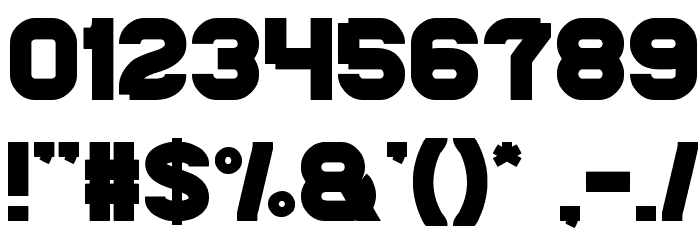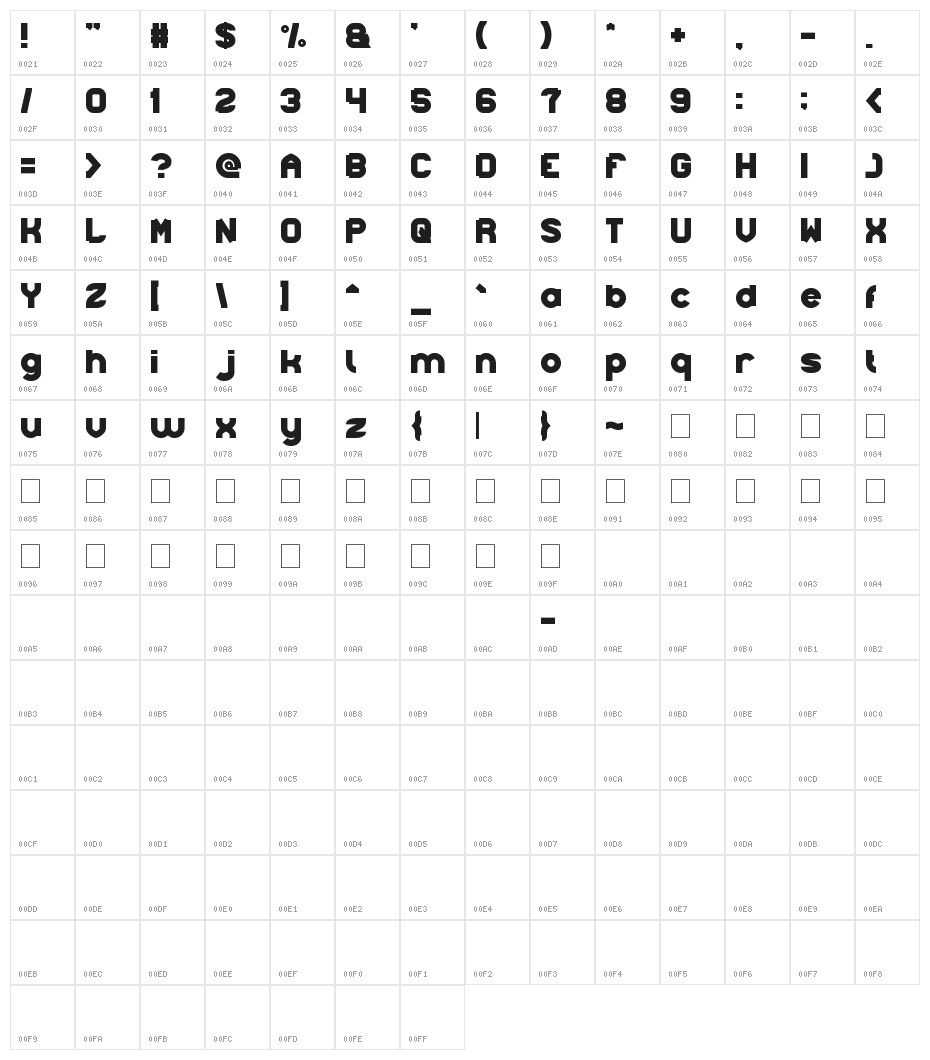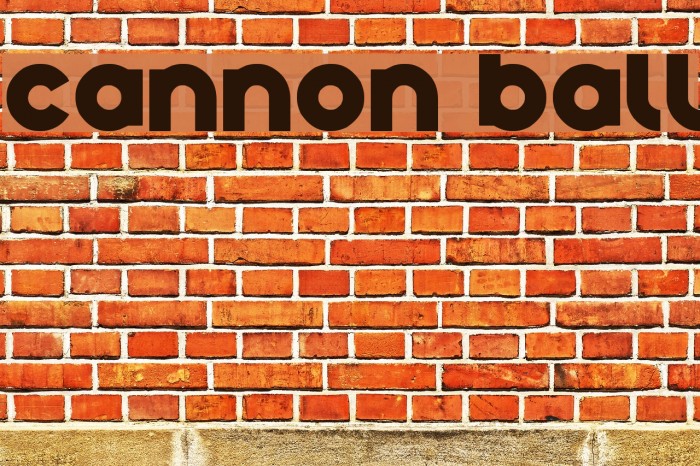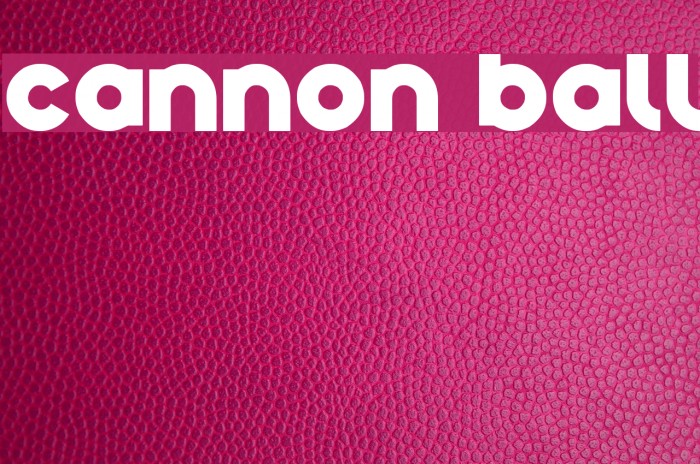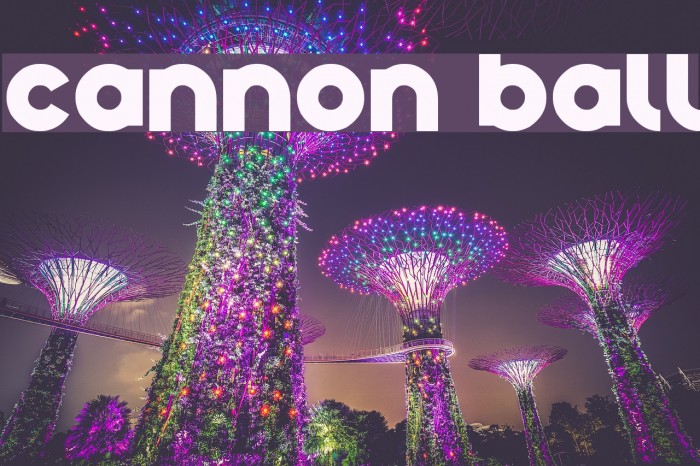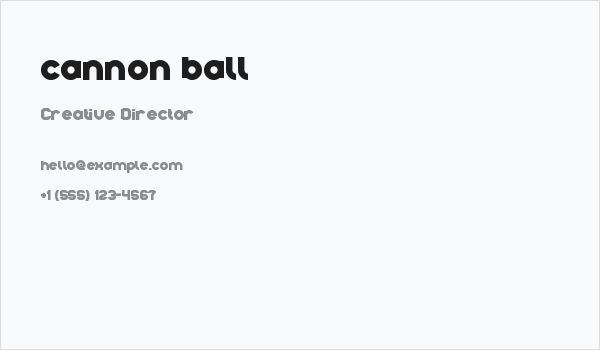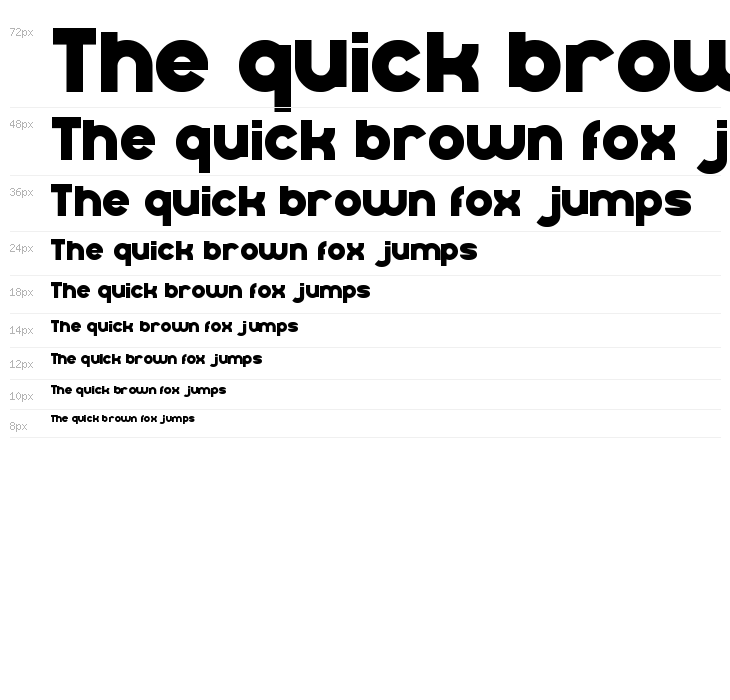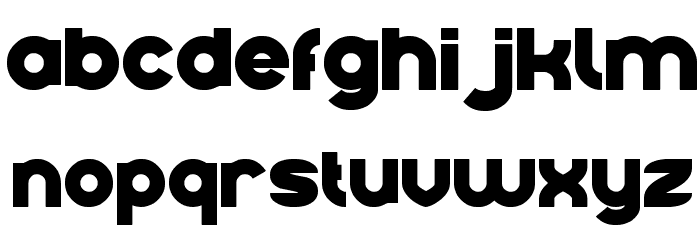
cannon ball Font
cannon ball Description
This font features bold, geometric letterforms with a strong, impactful presence. The characters are constructed with thick strokes and a uniform weight, giving them a solid and robust appearance. The design incorporates sharp angles and straight lines, creating a modern and industrial feel. The uppercase and lowercase letters maintain a consistent style, while the numerals and special characters are designed to complement the overall aesthetic. The font's boldness and unique style make it suitable for attention-grabbing headlines and display purposes.